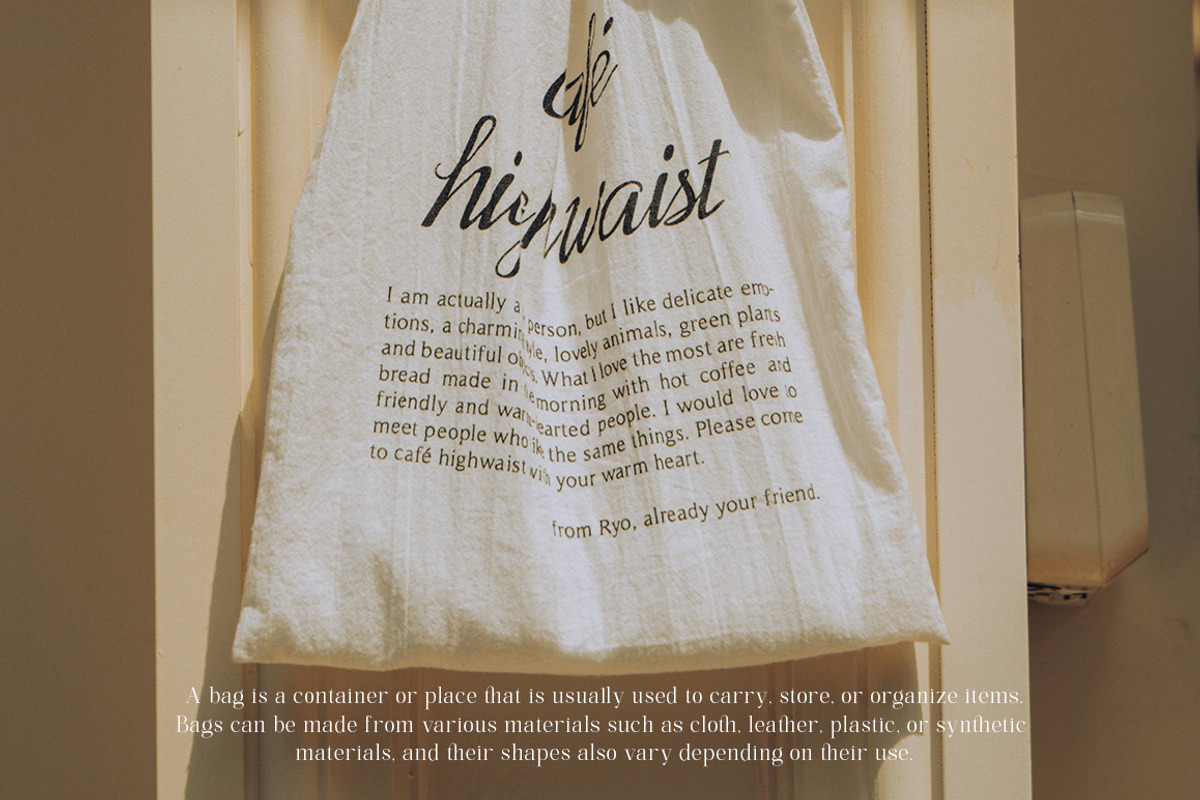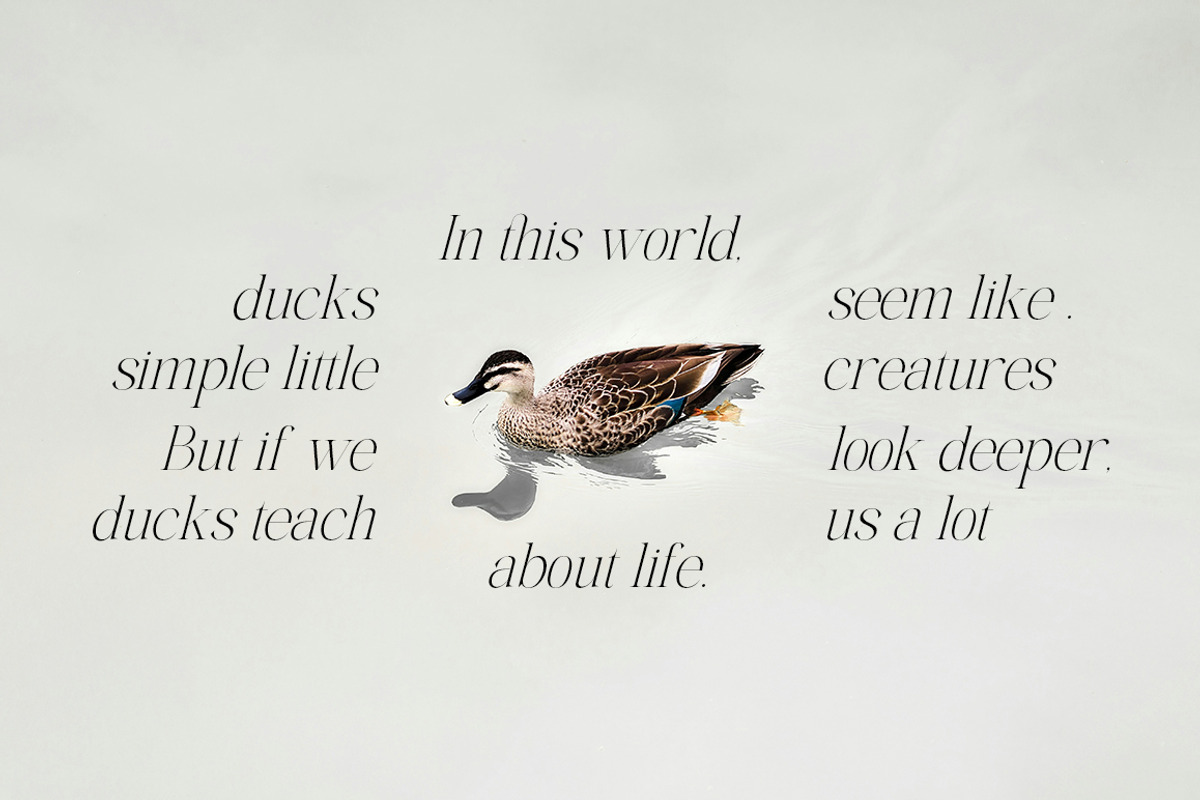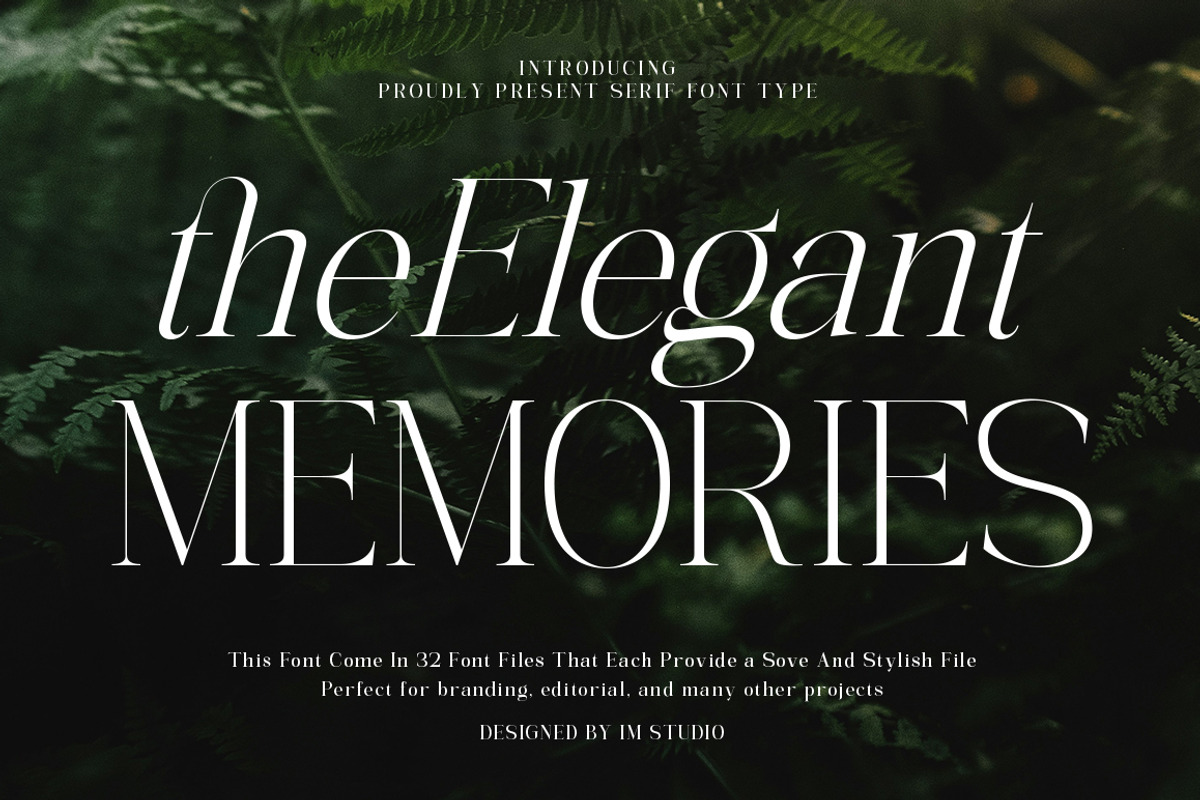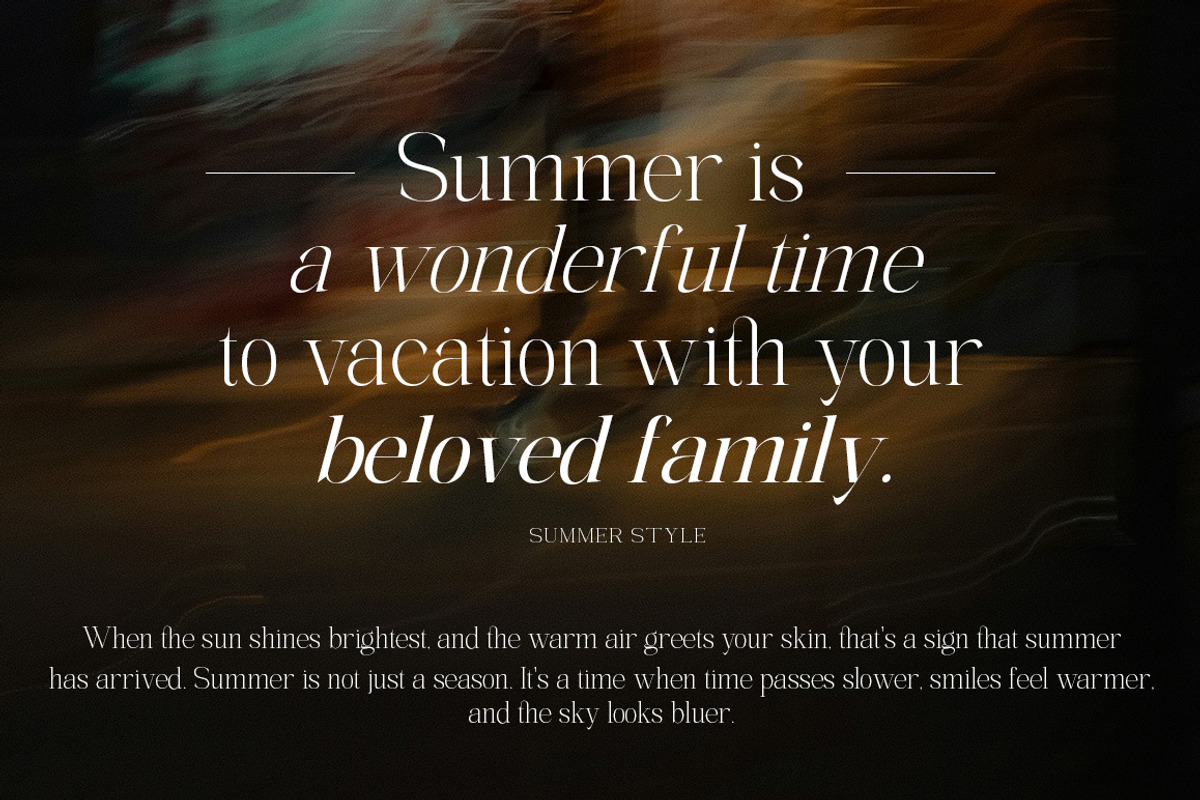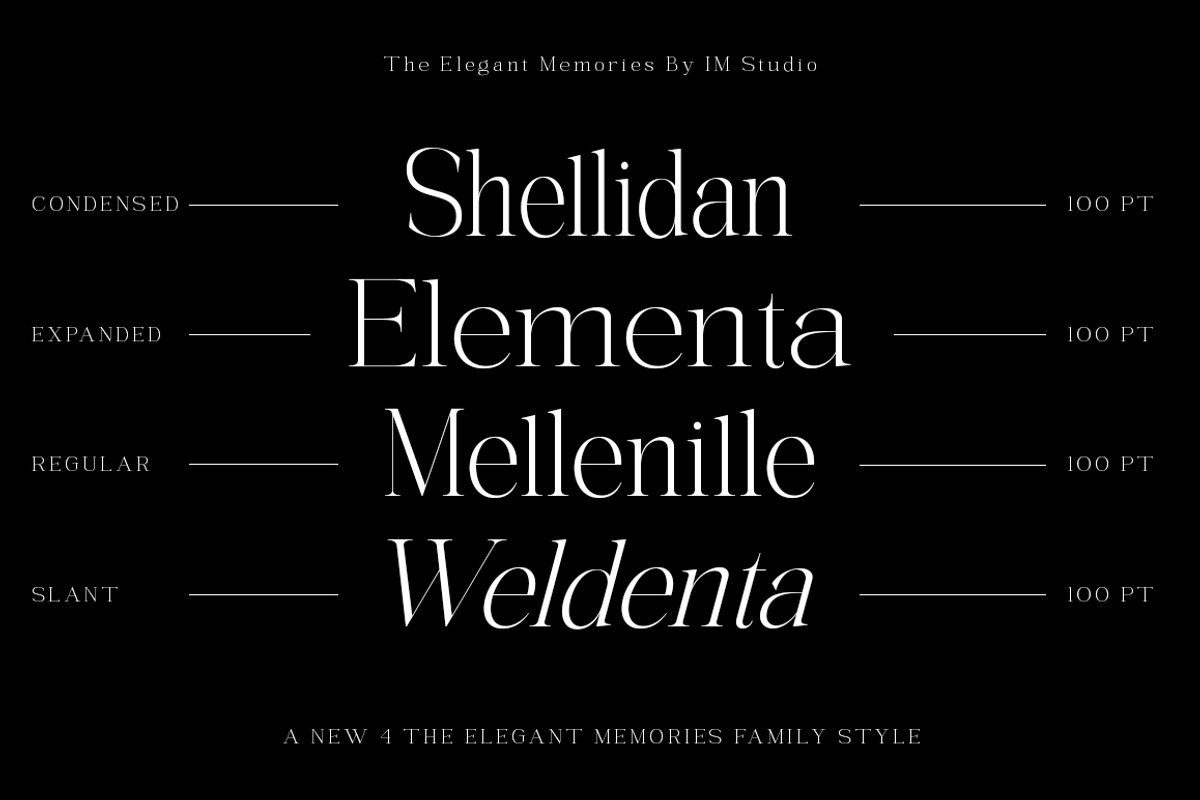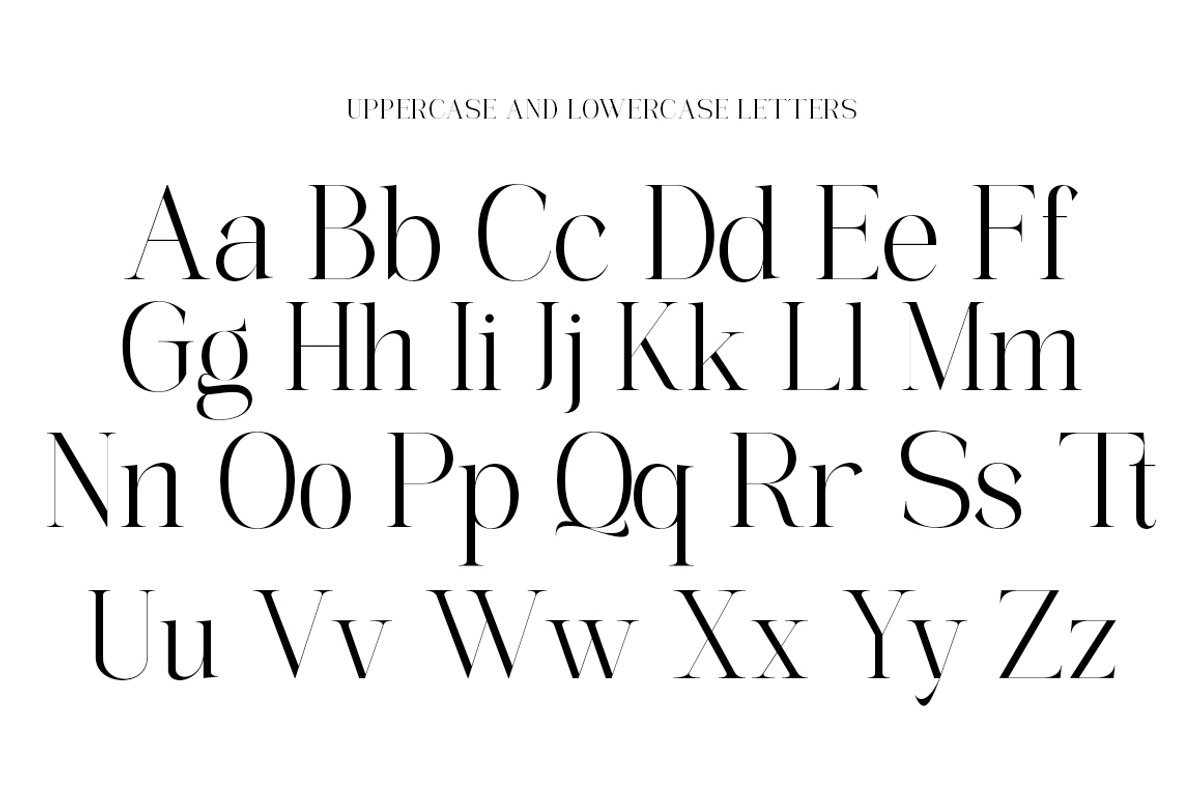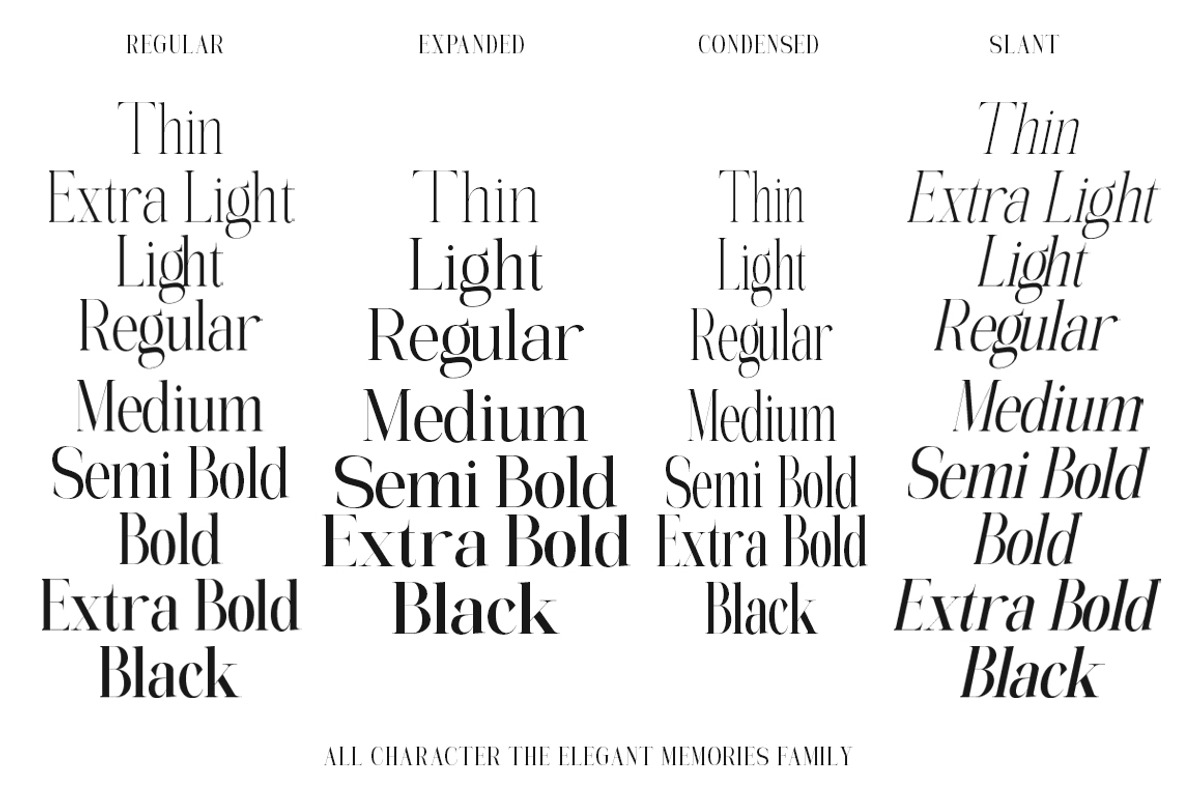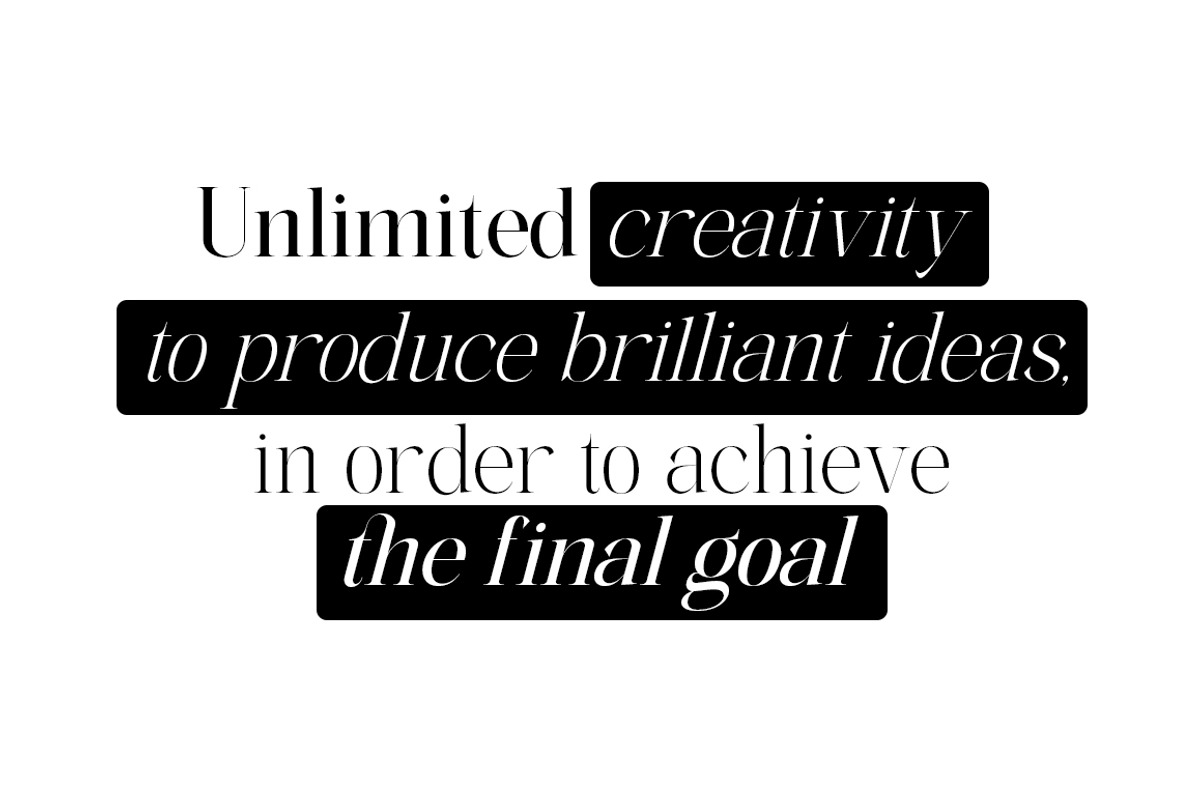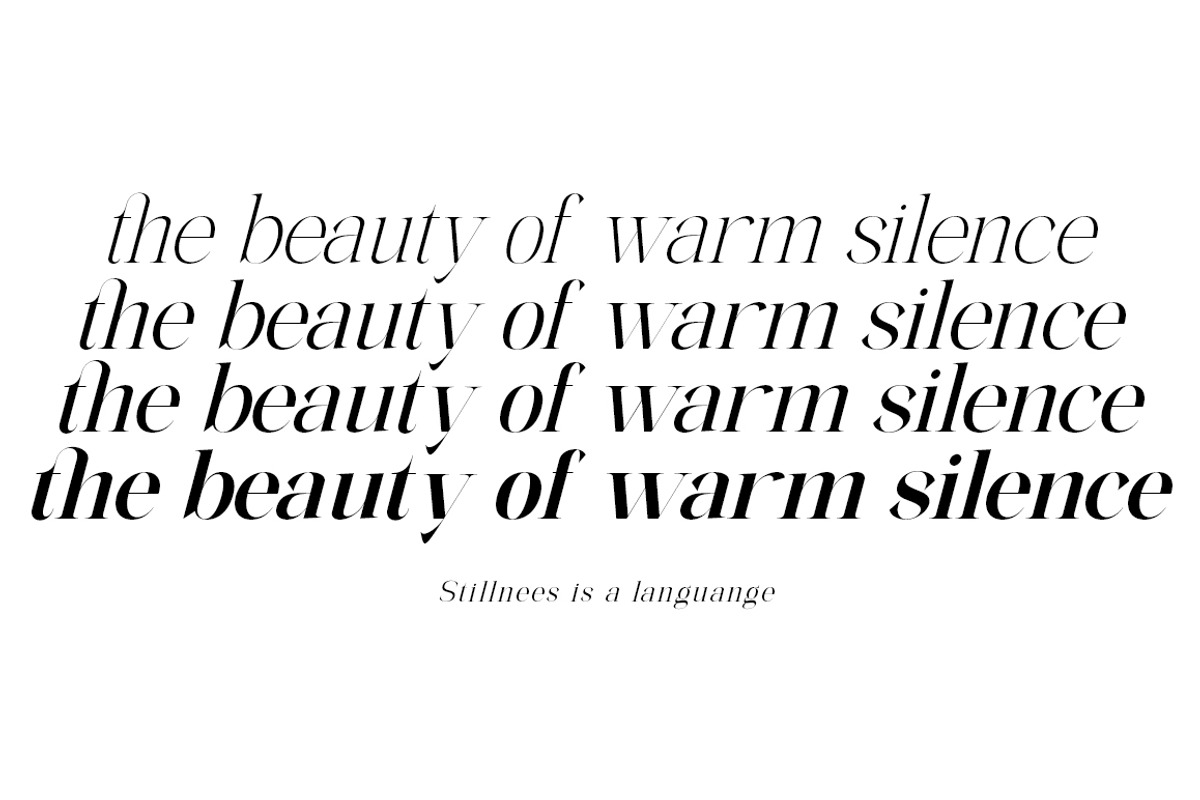
The Elegant Memories ( 32 Fonts )
The Elegant Memories is a serif typeface family that combines modern proportions with a touch of classic elegance. With a generous x-height and compact ascenders and descenders, this typeface has a strong character without sacrificing readability. Designed for flexibility, The Elegant Memories is an ideal choice for a variety of design needs such as branding, editorial, posters, logos, headlines, blogs, and more.
This font family comes complete with uppercase and lowercase letters, numbers, punctuation, and multilingual support. The Elegant Memories offers 32 font files that give designers full control and freedom to create in various design applications.